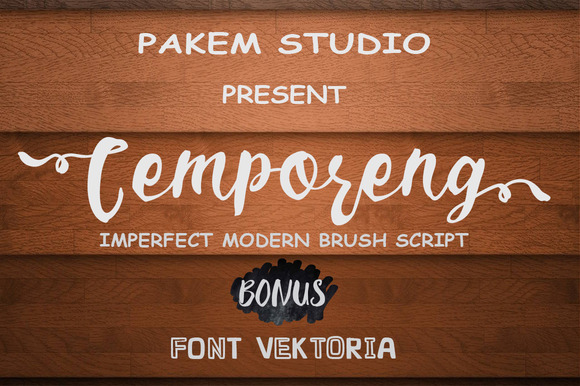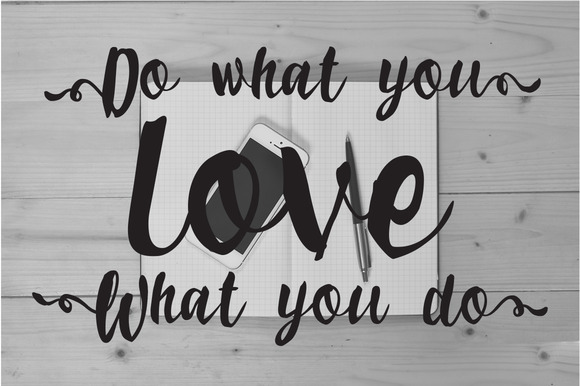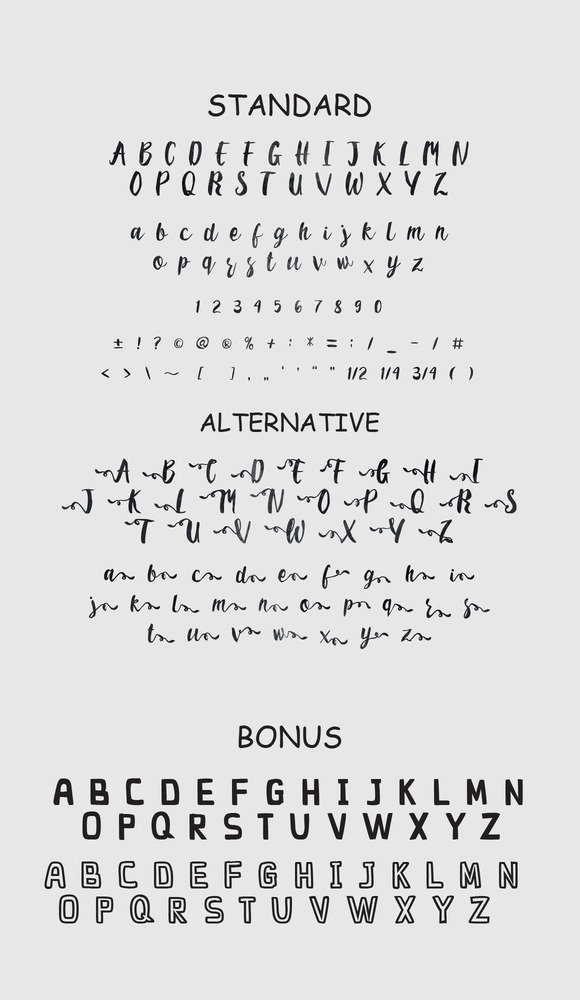
Cemporeng is a handpainted typeface with a unique movement. You can use it as a poster, t-shirt/apparel, greeting card, wedding invitation and many more as you like it. The following characters are ideal to make an unique messages, mix and match Cemporeng font with a bunch of alternative characters to fit your project.
Cemporeng font comes with a so many alternative characters. The alternative characters in this font were divided into several OpenType features. The OpenType features can be accessed by using OpenType savvy program such as Adobe Illustrator etc.